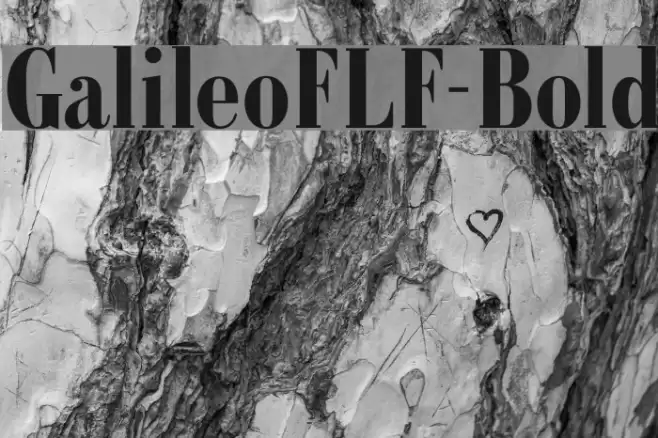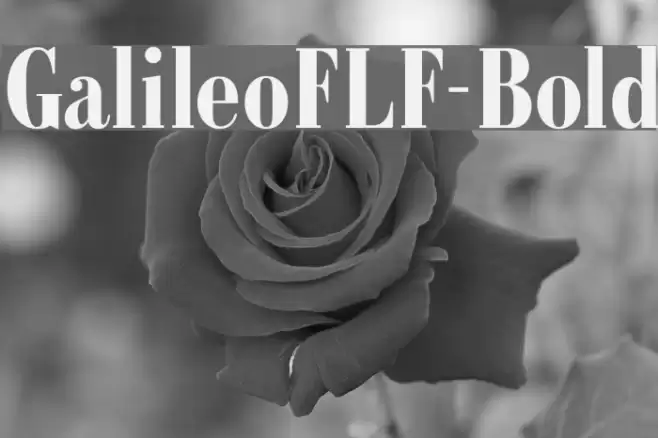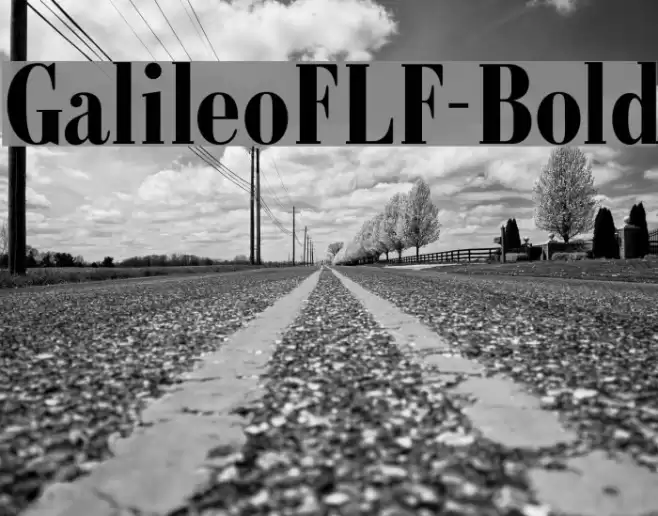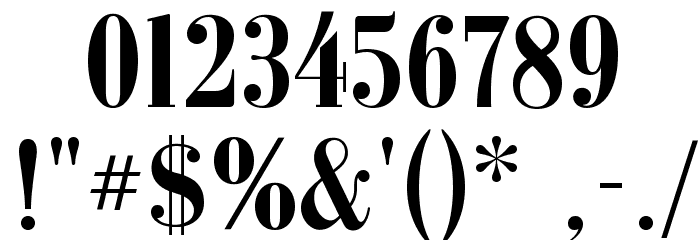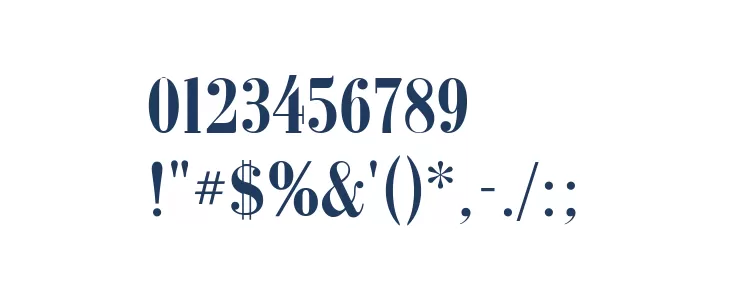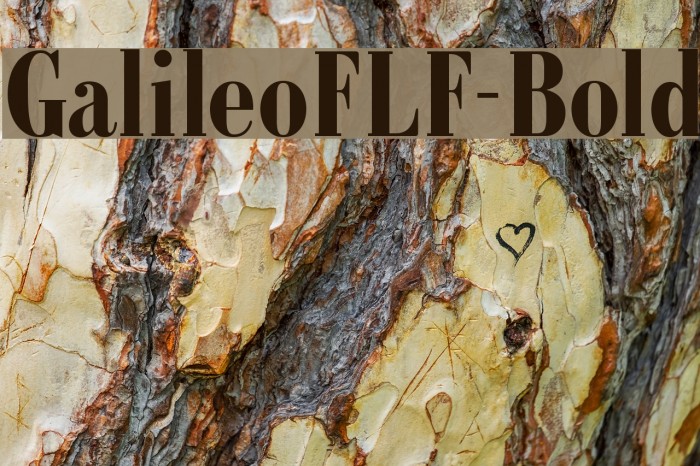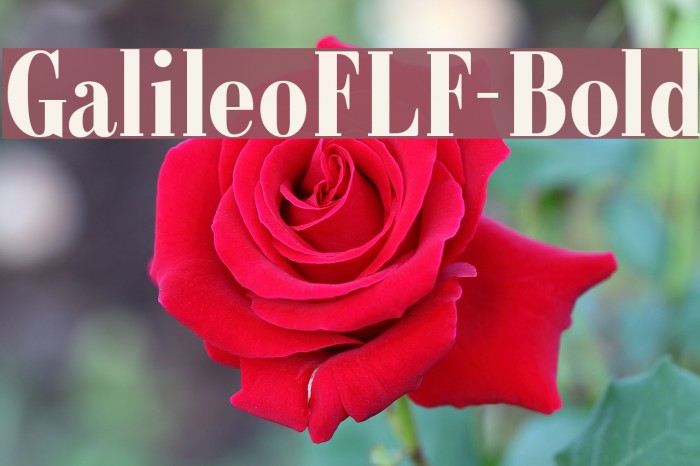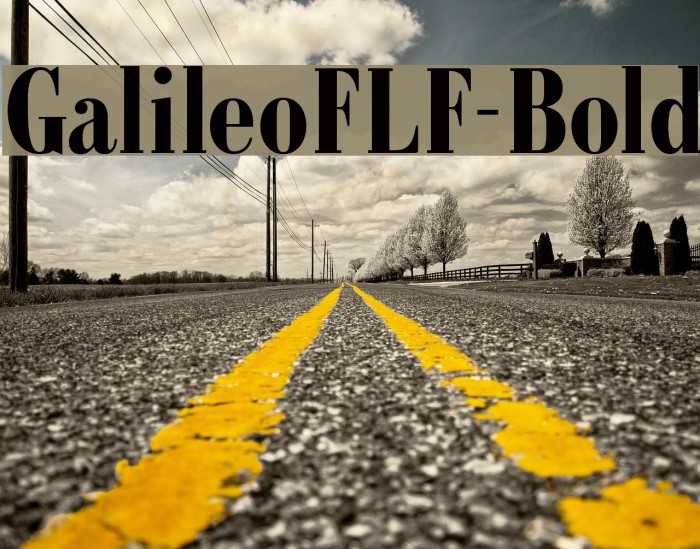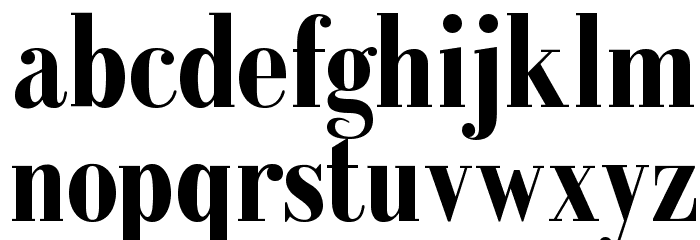
GalileoFLF-Bold Font
GalileoFLF-Bold Description
This font features a bold and striking serif style, characterized by thick vertical strokes and contrasting thin horizontal lines. The serifs are pronounced, adding a classic and formal touch to the overall appearance. The uppercase letters are tall and commanding, while the lowercase letters maintain a balanced and harmonious look. The numerals are clear and robust, ensuring readability. Special characters are elegantly integrated, maintaining the font's cohesive style. This typeface exudes a sense of tradition and authority, making it suitable for formal and impactful designs.
A bold, classic serif font with strong contrast and formal elegance from Uncategorized fonts.
- Proposed Projects: Ideal for book covers, editorial headlines, formal invitations, and branding materials that require a traditional and authoritative look.
- Overall Style: Classic